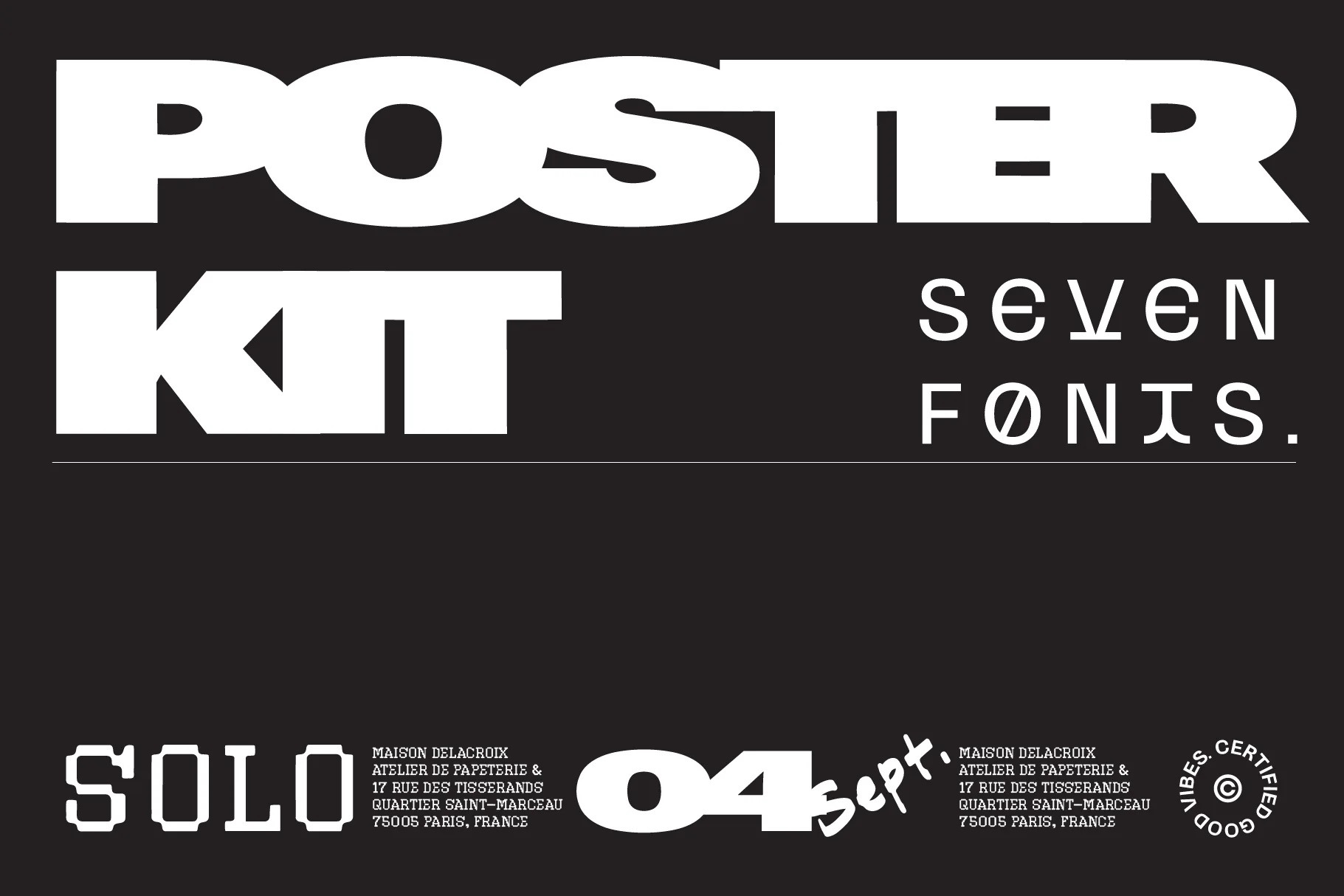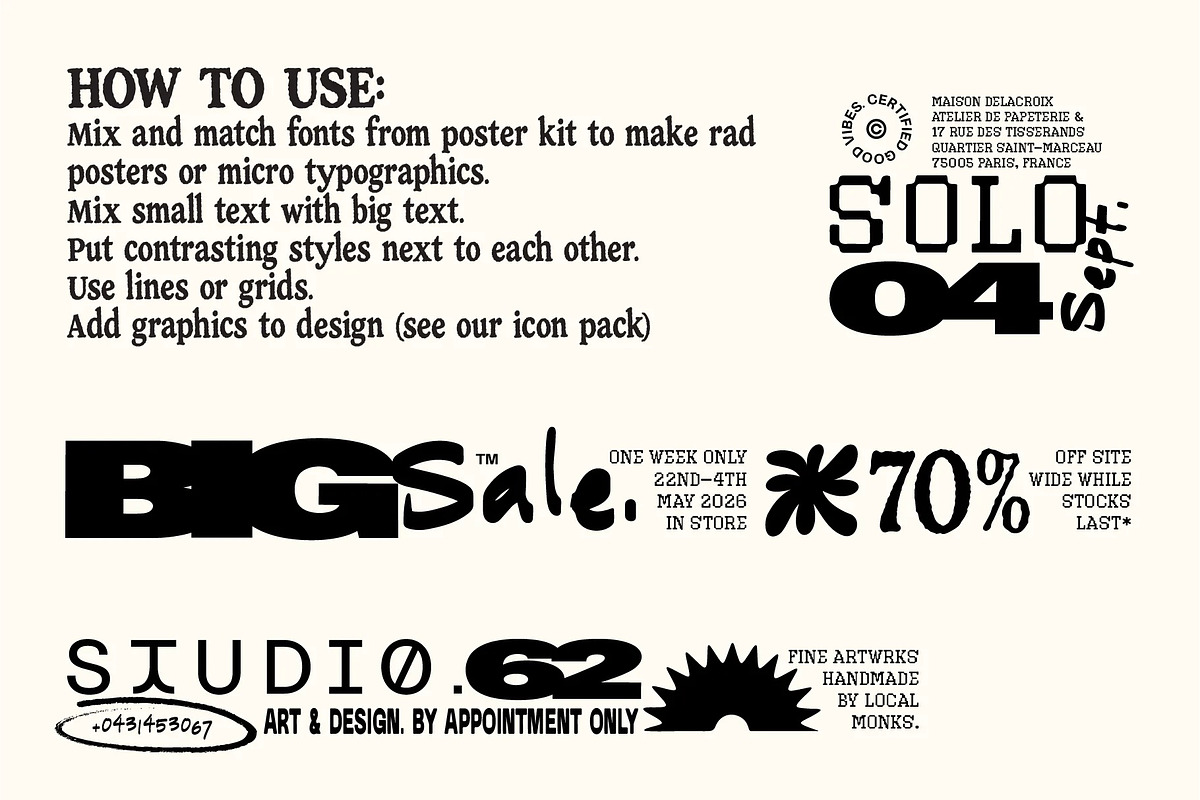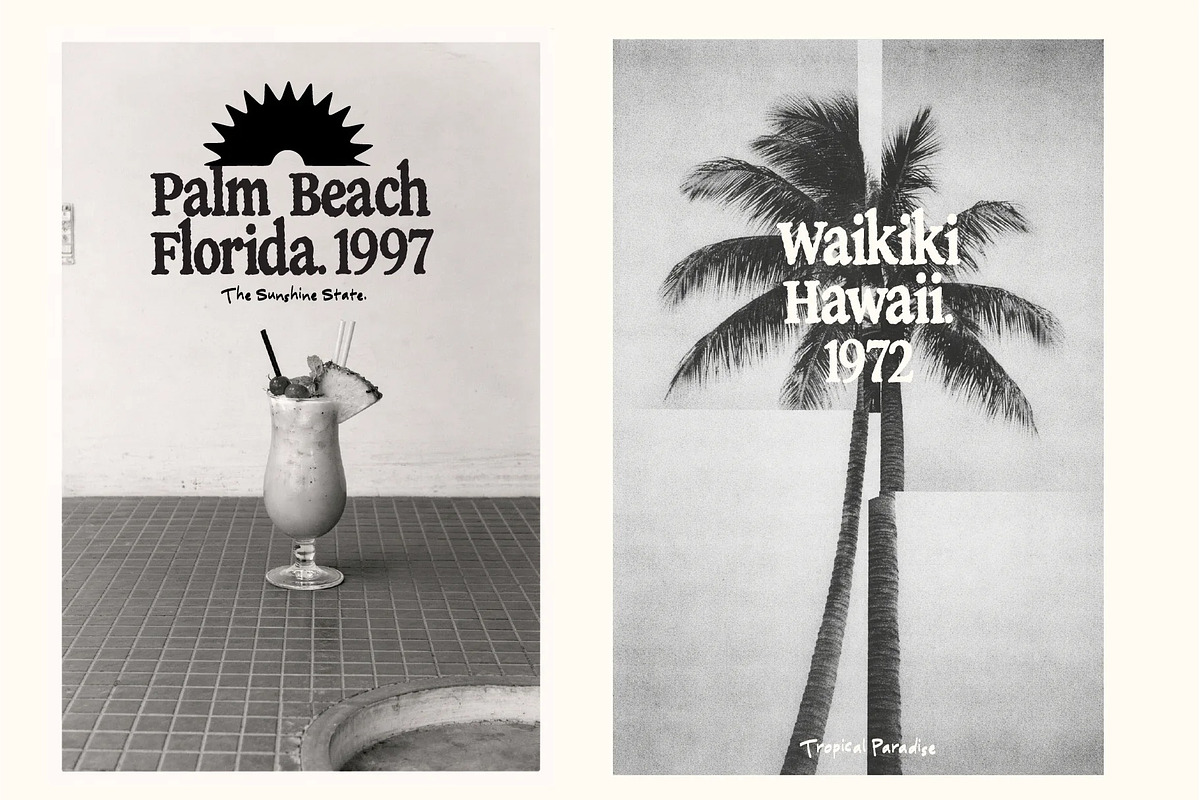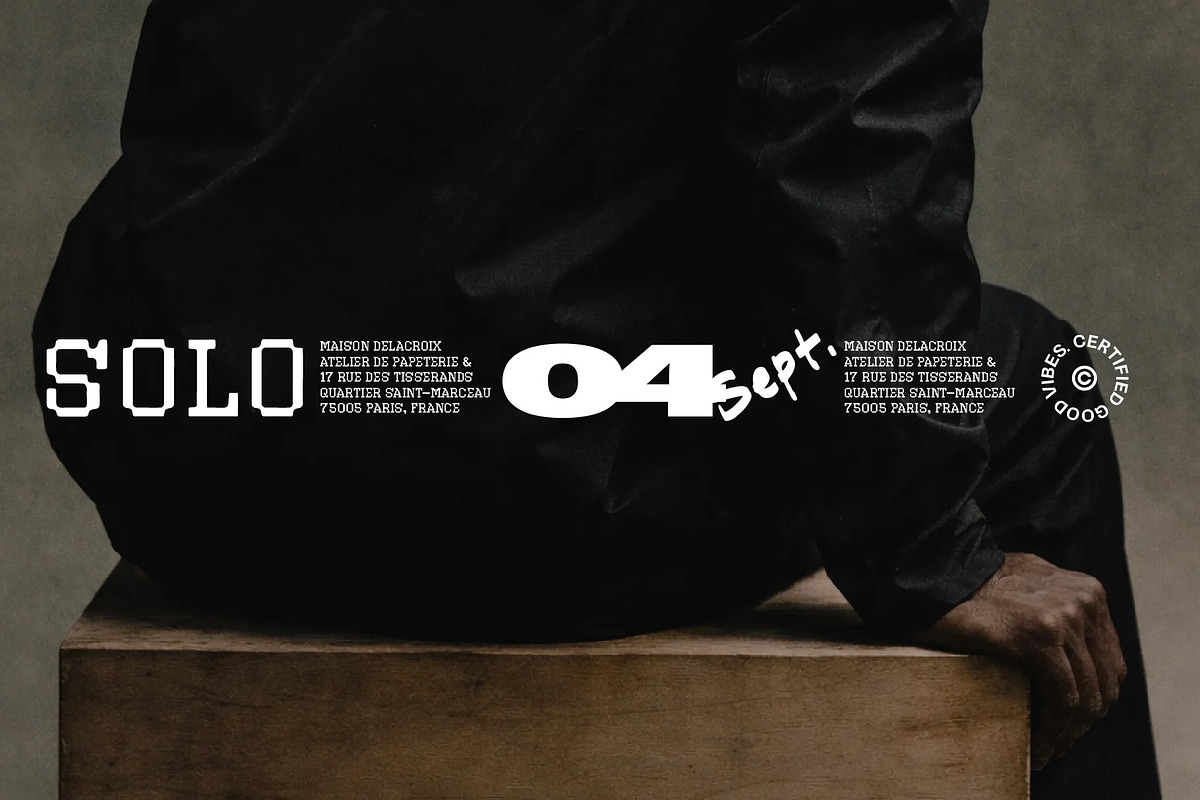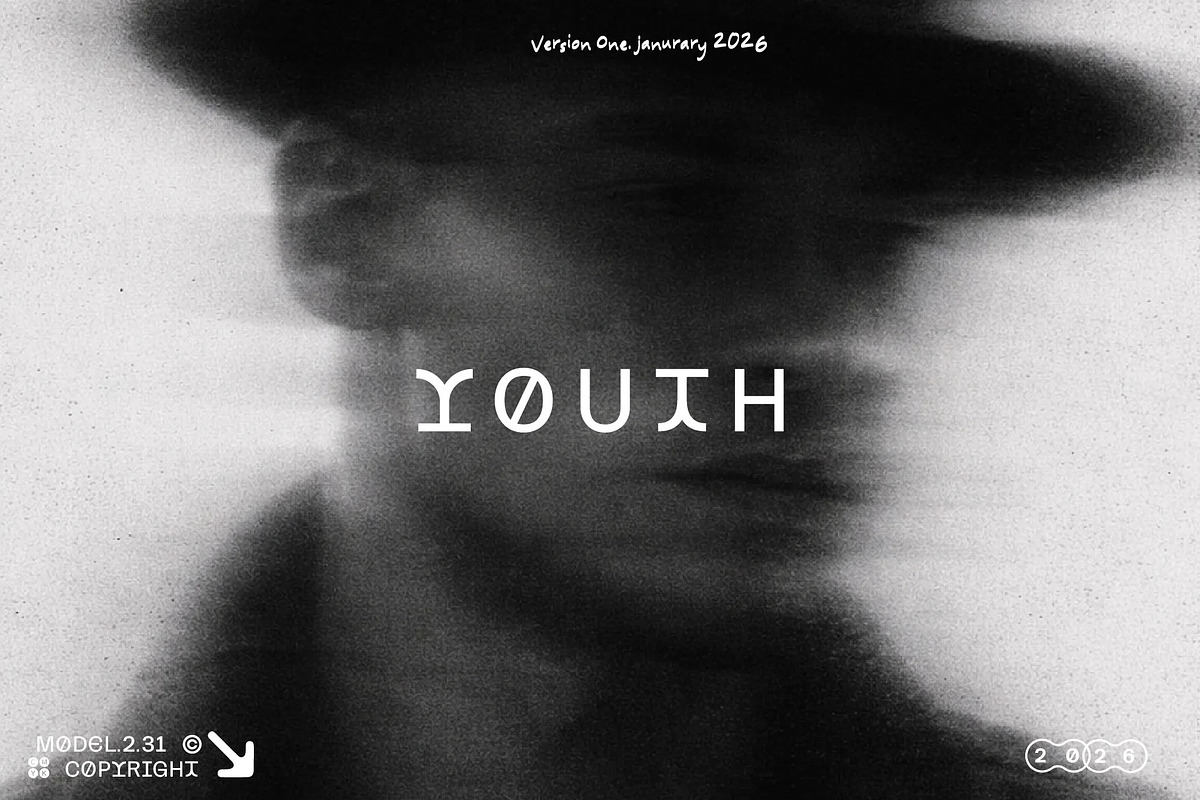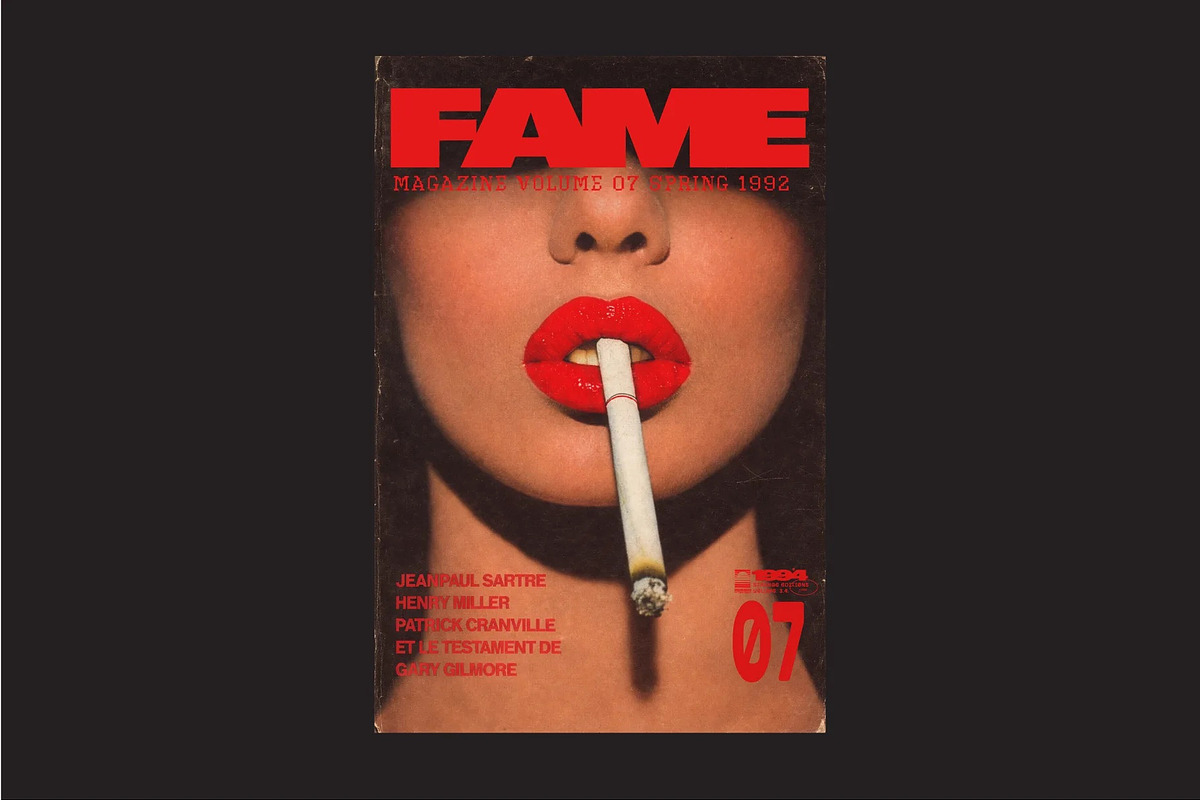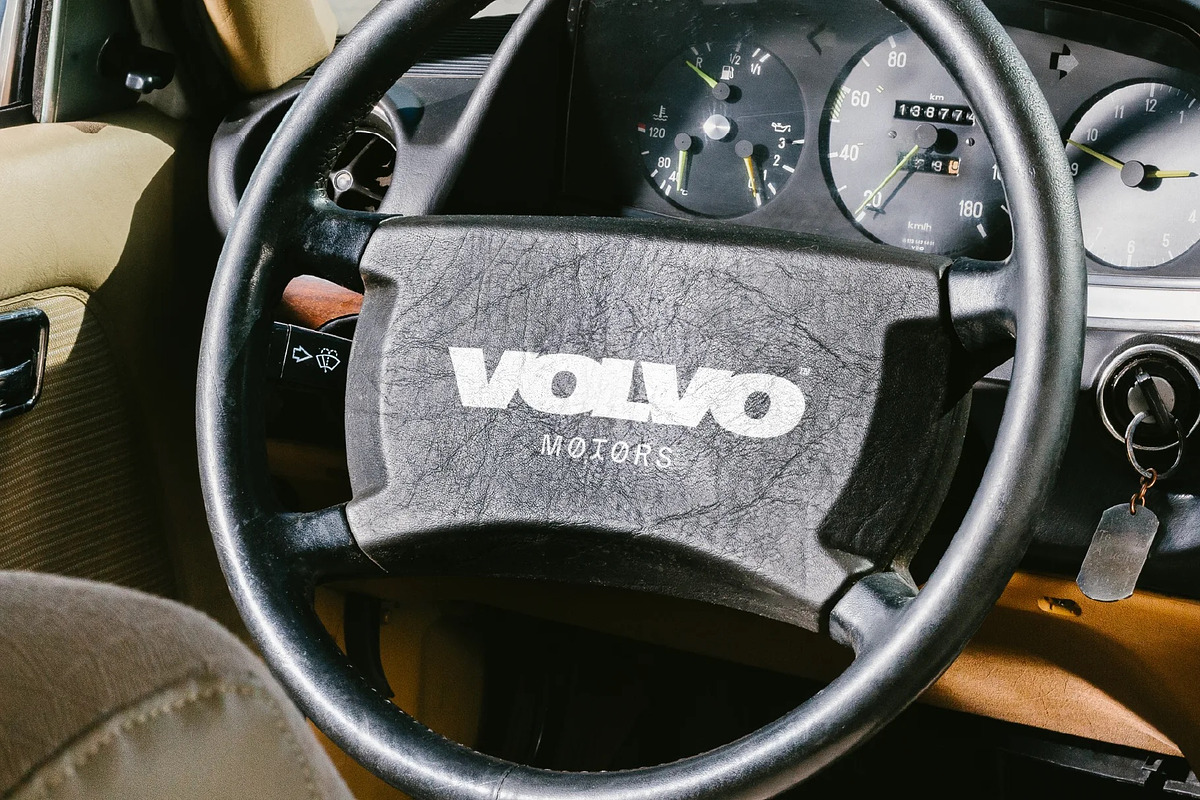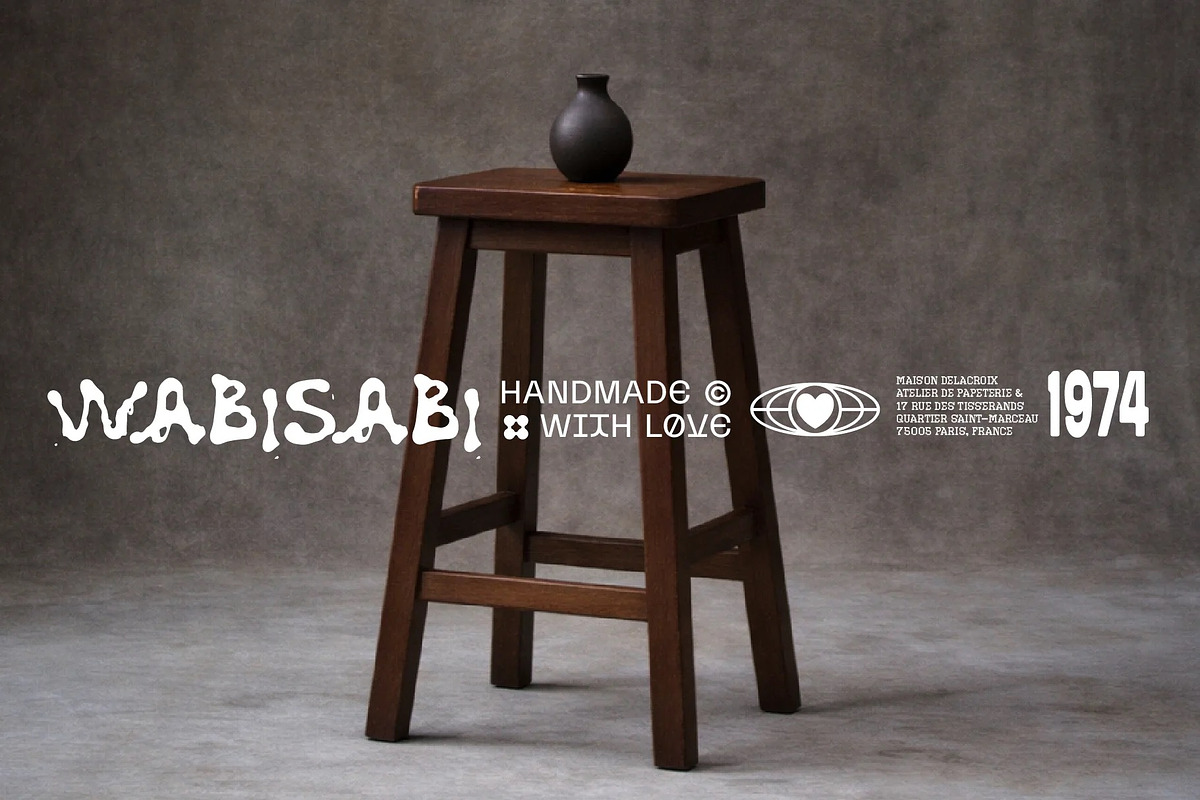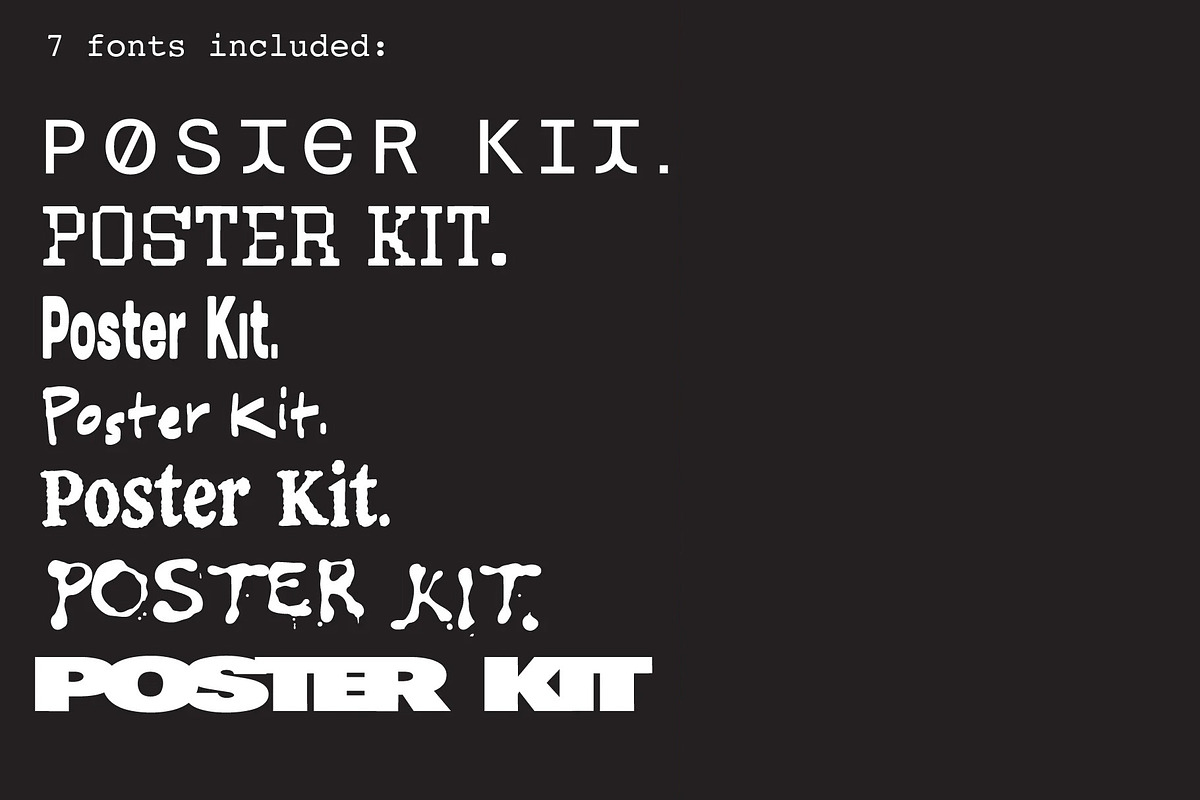
POSTER FONT KIT
The Poster Kit Font Pack is a selection of fonts I have made over the years for various projects that were never released. I stuck them all together and thought "wow they make some pretty cool combos!" So here they are together - yes seven kind of edgy nostalgic 90's style fonts that look perfect in micro graphics (very hot right now) or for poster design. Enjoy.
Non English glyphs included: ą á â à ä å ã æ ć ç ę é ê è ë í î ì ï ı ł ñ ń ó ô ò ö õ ø œ ś š ß ú û ù ü ý ÿ ž ź ż.Ą Á  À Ä Å Ã Æ Ć Ç Ę É Ê È Ë Í Î Ì Ï Ł Ń Ñ Ó Ô Ò Ö Õ Ø Œ Ś Š Ú Û Ù Ü Ý Ÿ Ź Ż